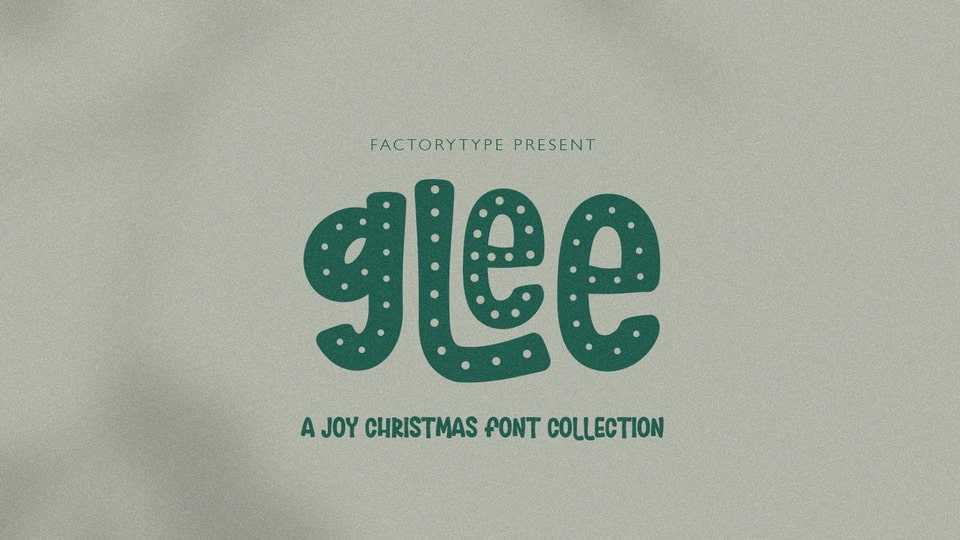
Download Glee font, a contemporary and enjoyable Christmas typeface to add some excitement to your holiday projects Glee font is ideal for sleigh rides, caroling, and other festive activities.
Designer: Factory Type